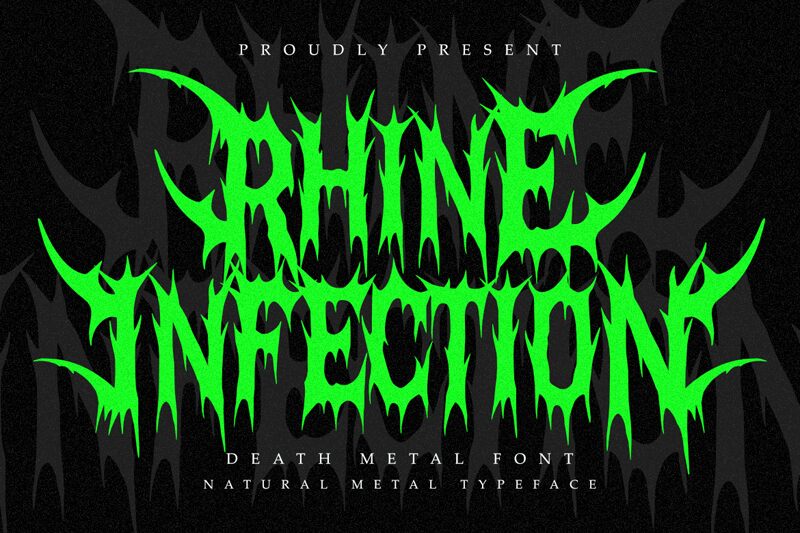
Rhine Infection font by Muhammad Yafinuha is a free gothic font with a distinct organic touch. The designer combines thin highlighted and shadowed areas within each letterform for a mystifying outcome. The unconventional typeface with its unusual elements can help you stand out from the rest by associating itself with rebellious ideas. The main advantage of using the font is that your headlines and visual applications will be entirely natural and original.
Brand and packaging design are 2 immediate uses because it’s important for them to draw attention to the product on store shelves. Poster design is another segment where using Rhine Infection is beneficial for the same reason. In both these applications, the font will scream for attention and therefore acquire more eyeballs. Another sector is music, especially rock music and its various sub-genres.